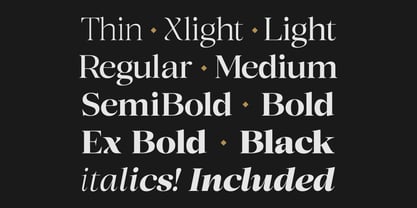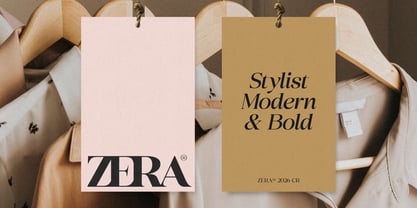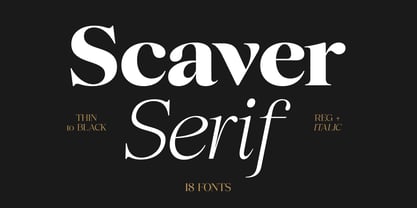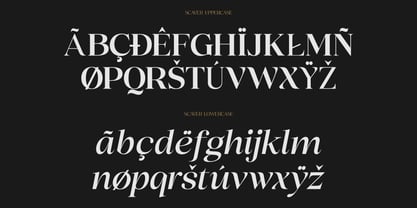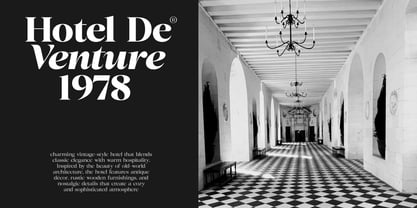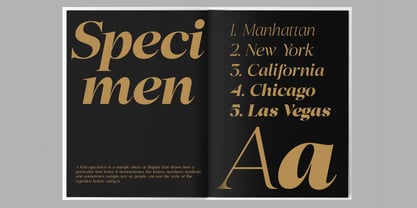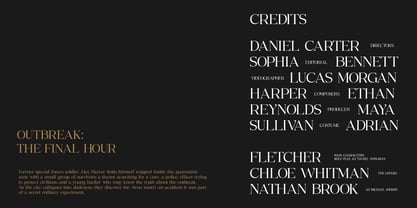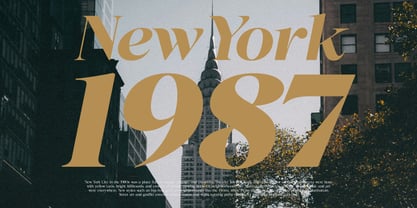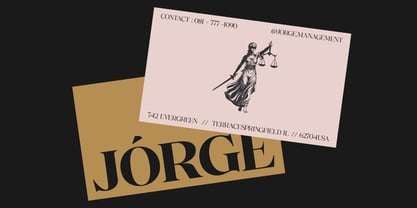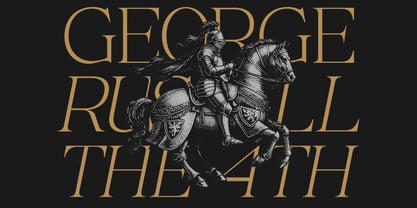
Scaver
Scaver is a refined modern serif font family designed for creators who want elegance, luxury, and strong visual impact. With 18 carefully crafted styles from Thin to Black including beautiful italics, this typeface gives you complete flexibility for sophisticated typography. The design features high contrast strokes, smooth curves, and stylish serif details that make it perfect for fashion branding, editorial layouts, luxury logos, packaging, and magazine headlines. Whether you are designing for a premium brand, a boutique product, or an elegant website, Scaver delivers a timeless and professional look. Scaver works beautifully for logos, branding, fashion campaigns, editorial design, beauty brands, wedding invitations, and luxury packaging. If you want typography that feels modern, classy, and premium, Scaver is the perfect choice for your next design project.